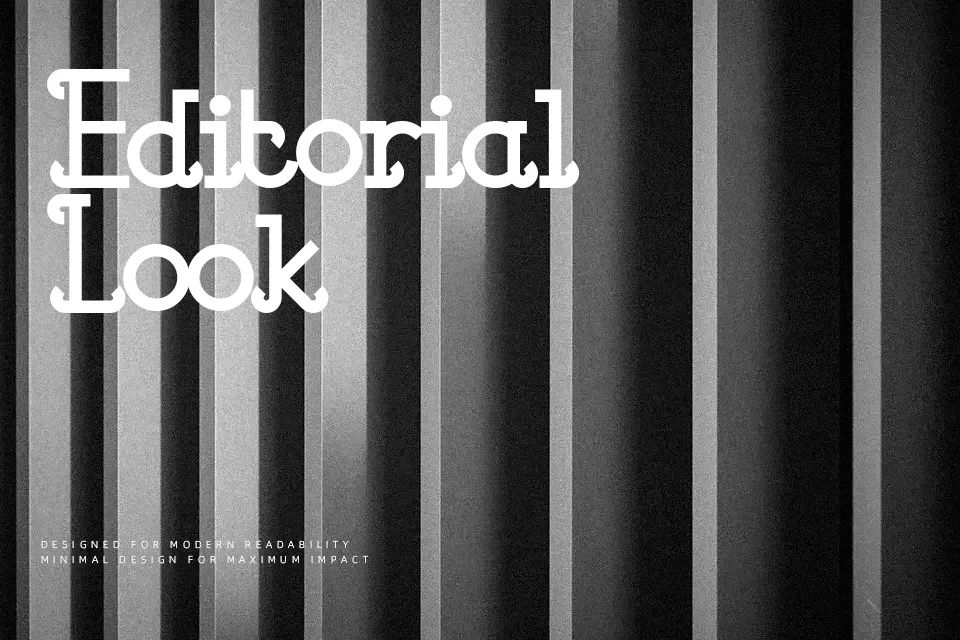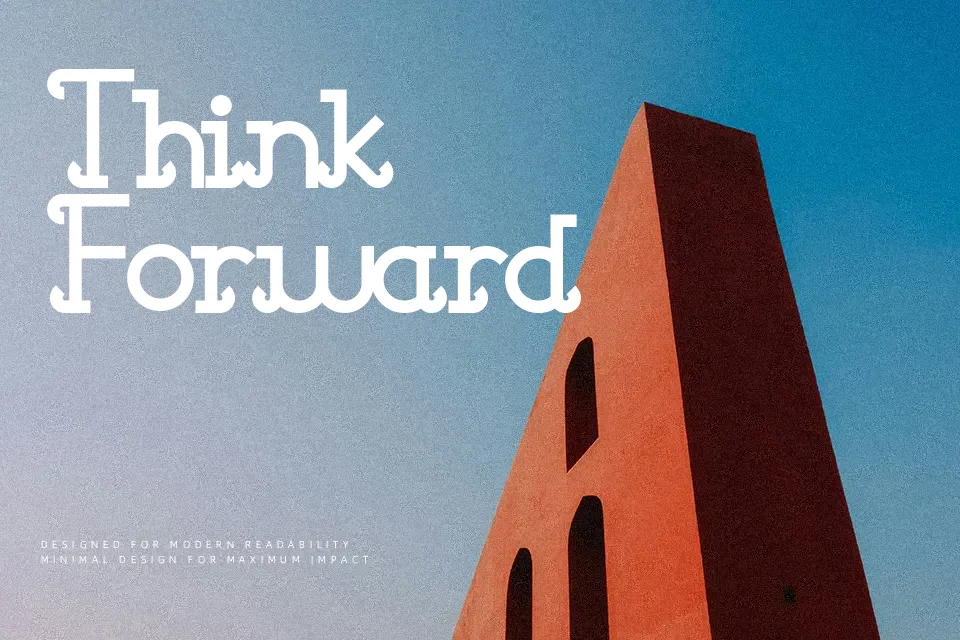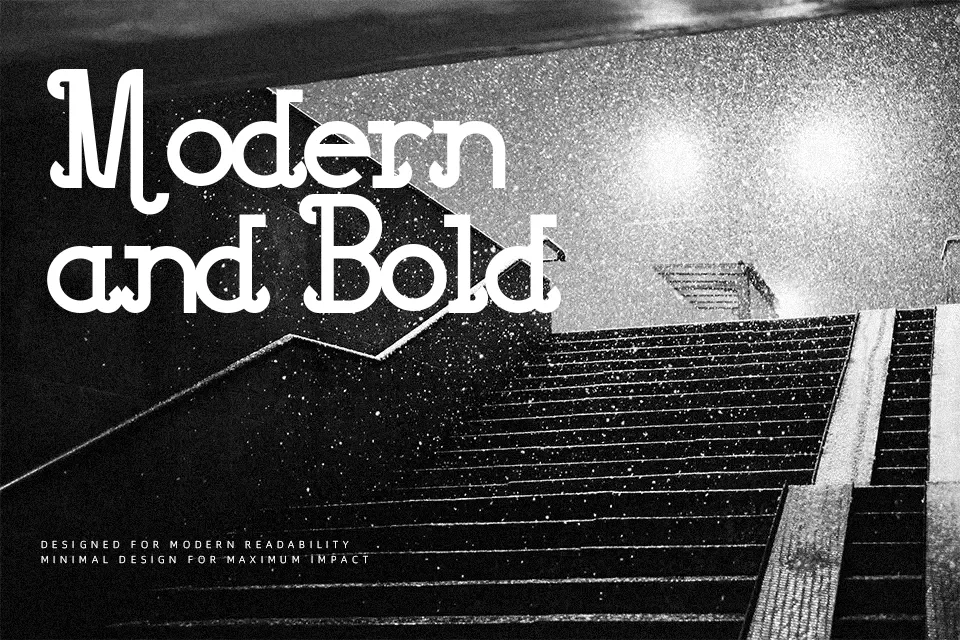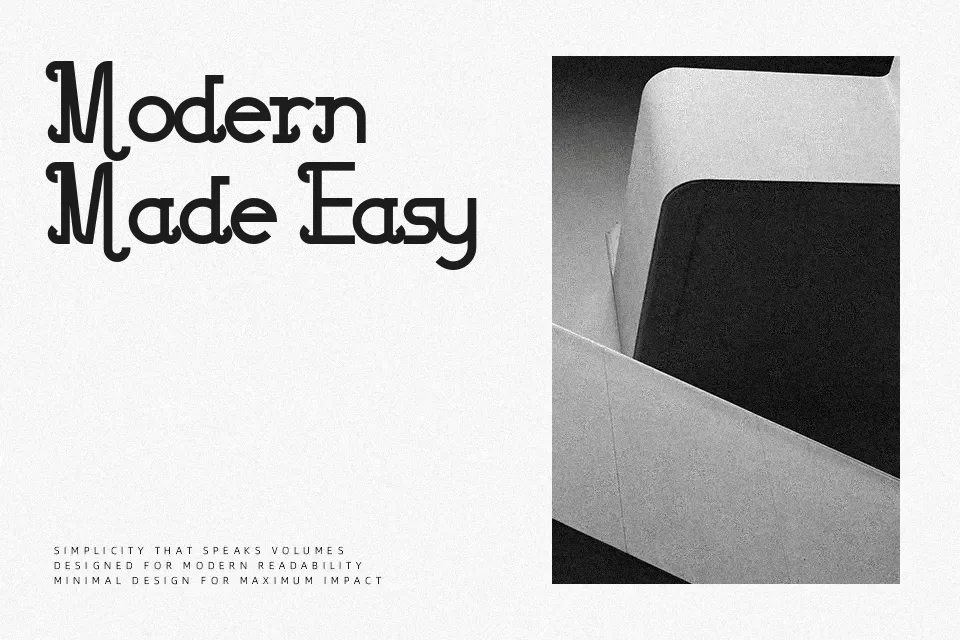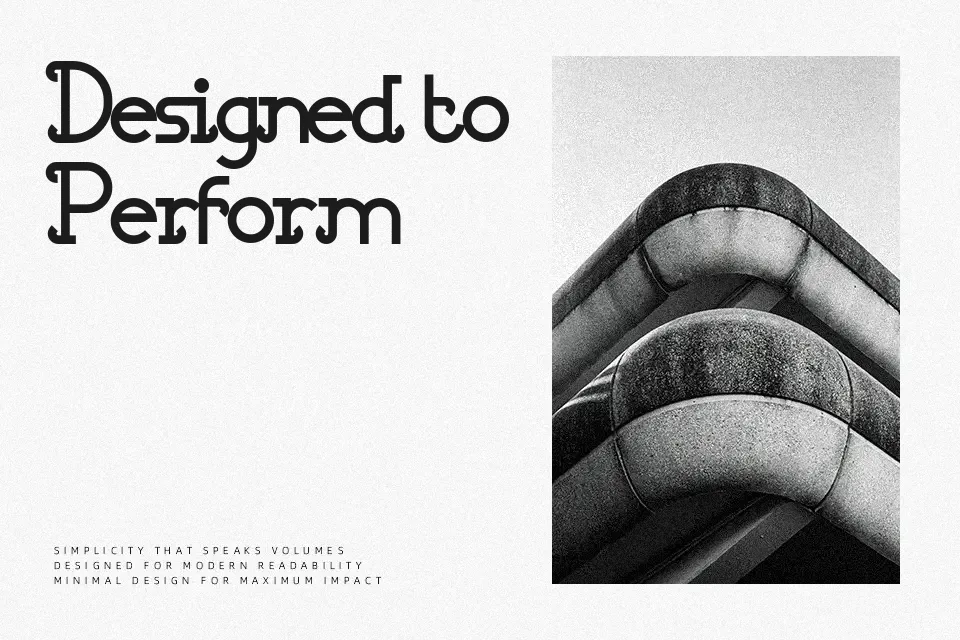
Barcelona Font
Barcelona has the bone structure of a geometric sans — even strokes, open counters, and measured spacing — but its five stylistic sets (ss1–ss5) introduce enough alternates to shift the mood from clean and modern to something almost retro-inflected. Eight weights from light to bold, each with a slant variant, make it genuinely adaptable across a project. It works well as a headline or quote display typeface, especially where a designer wants typographic personality without resorting to a script. That said, the free release includes only a single weight, so anyone needing the full family range will need to purchase the complete pack — a real constraint if you’re testing it across an entire layout before committing.
Best For:- Brand logotype and wordmark design
– Editorial magazine headlines
– Minimalist poster headers
– Social media quote graphics
Not Ideal For:- Long-form body text or paragraph copy
– Formal corporate reports requiring strict neutrality
– Projects needing multilingual or extended character sets
Perfect for branding, editorial, and headline, with a classic and display style.